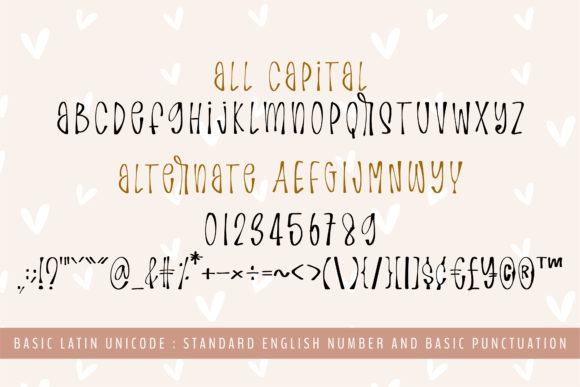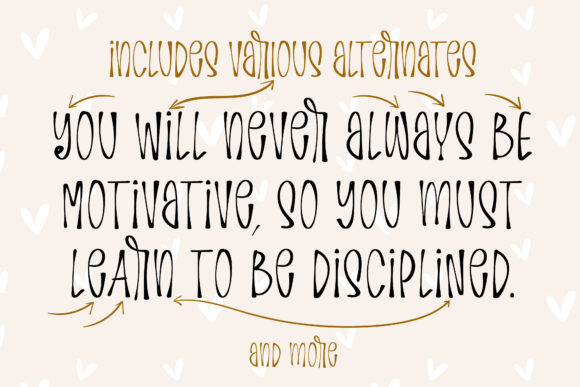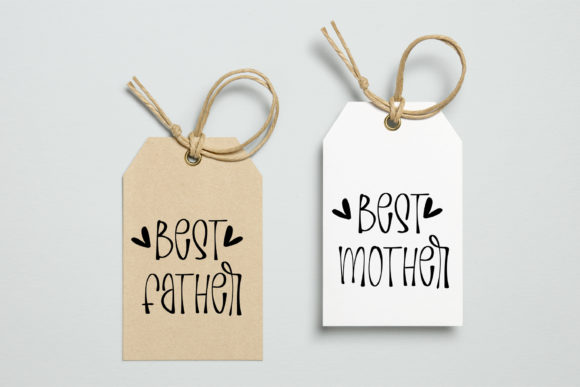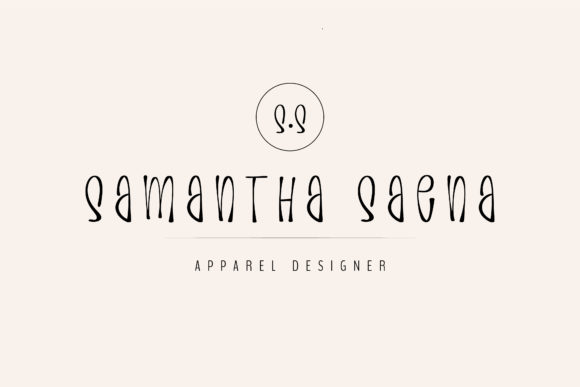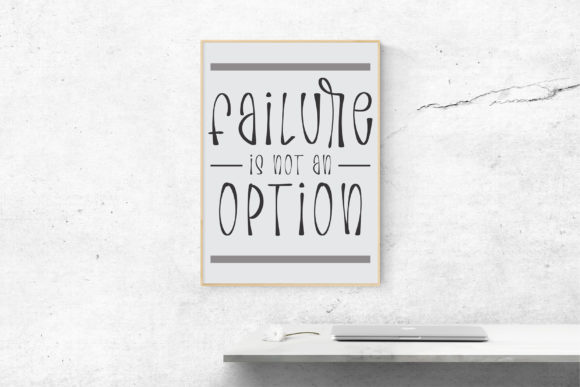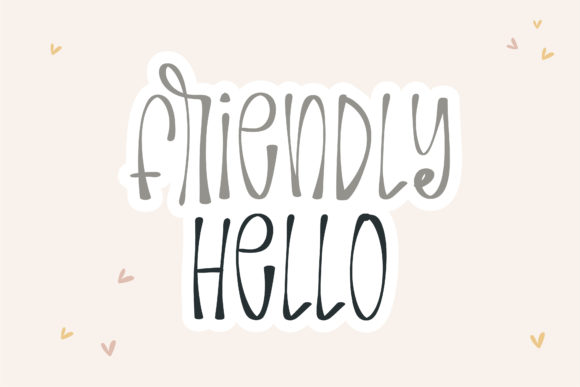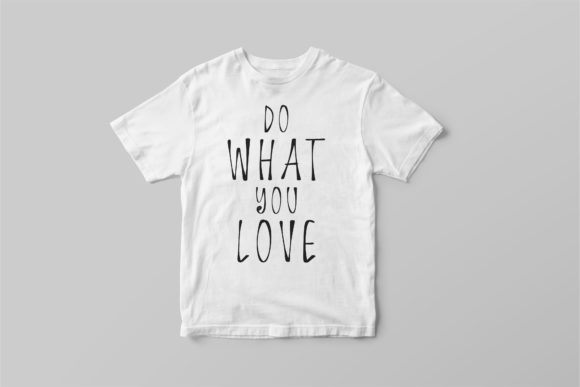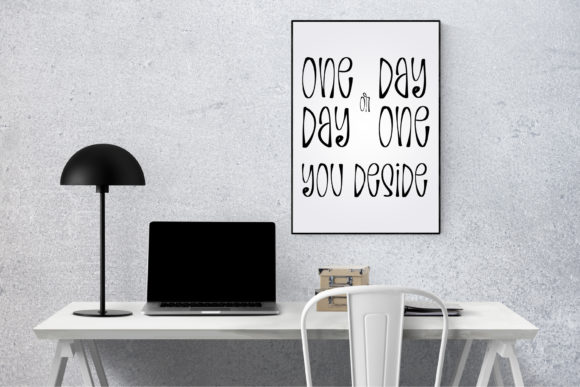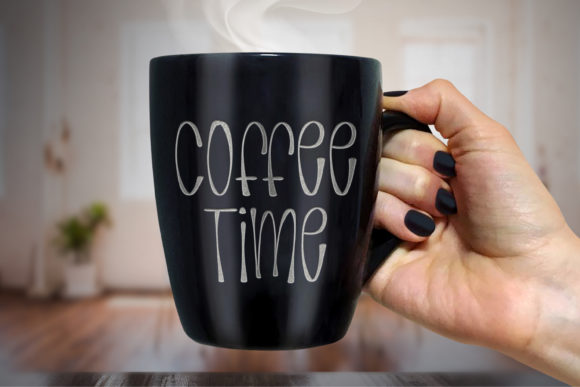
Camaraderie Font
About Camaraderie Font
Camaraderie is a sweet and a bit quirky handwritten font. Its natural and unique style makes it incredibly fitting to a large pool of designs. The only limit is your imagination!